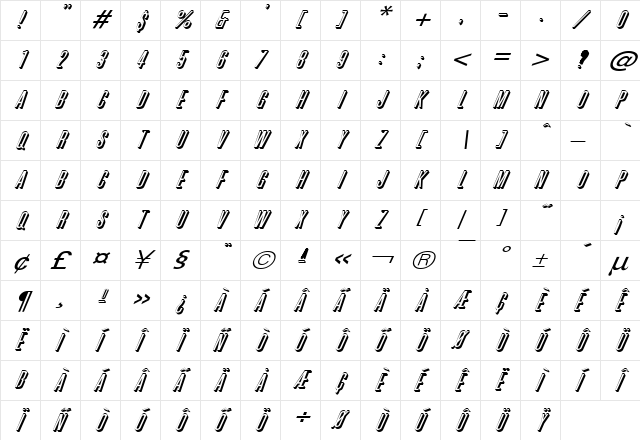
Phoenix Wide D Italic
Design Context for Phoenix Wide D Typeface
Phoenix Wide D is a composed and adaptable typeface that performs quietly and consistently across a wide range of design contexts. Its italic angle brings a sense of urgency and motion to the letterforms.
Pro Tip: Use Phoenix Wide D for emphasis, pull quotes, and subheadings where its slanted energy can add rhythm to the layout.